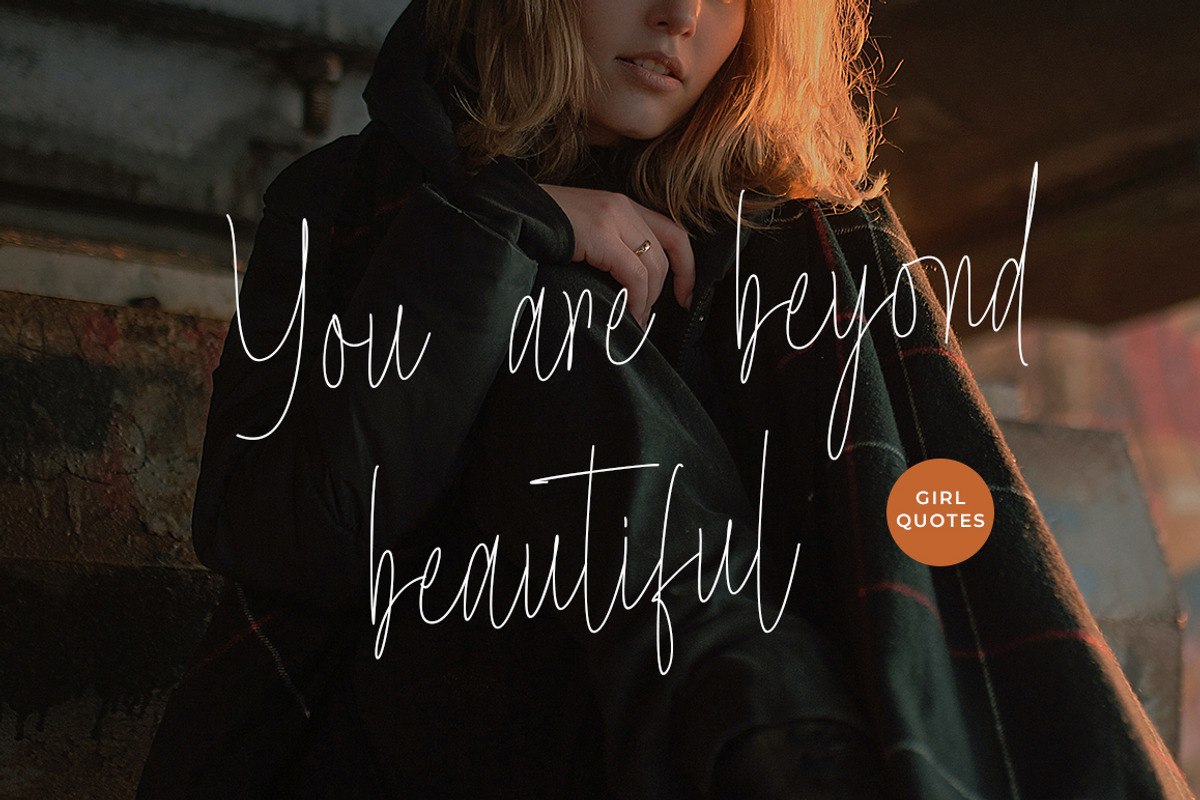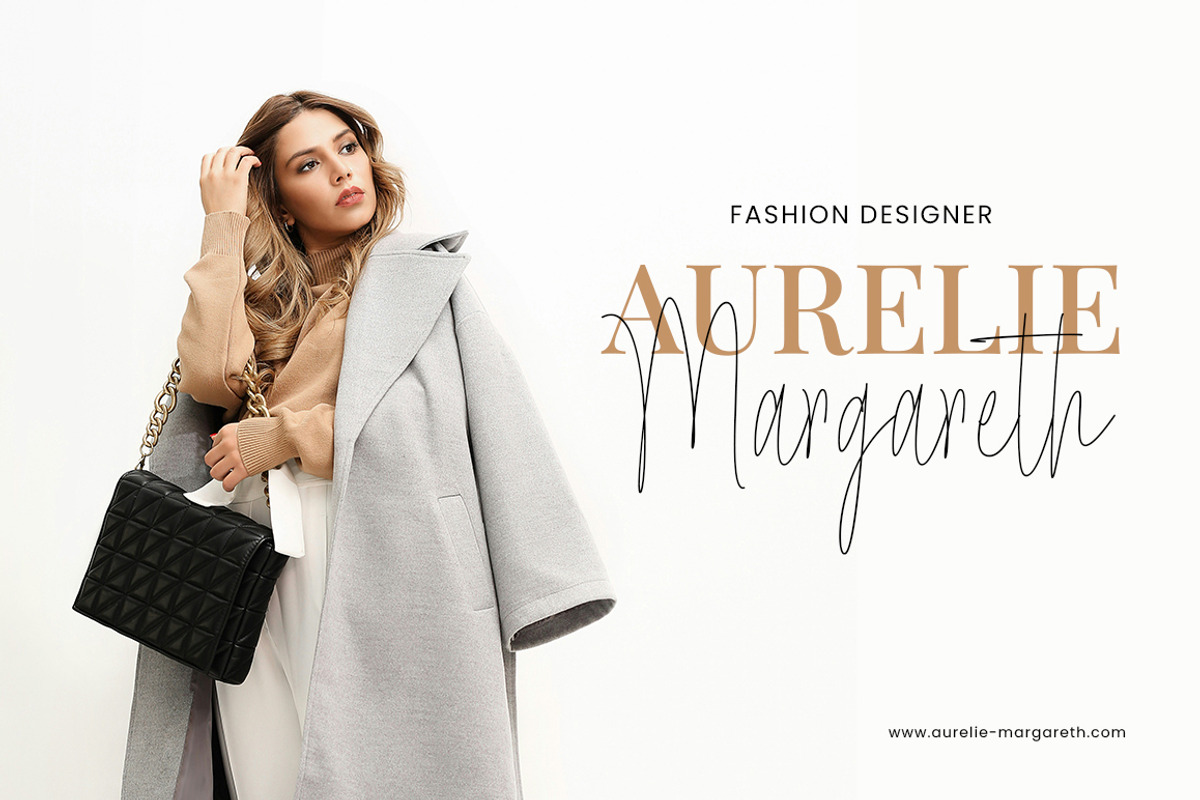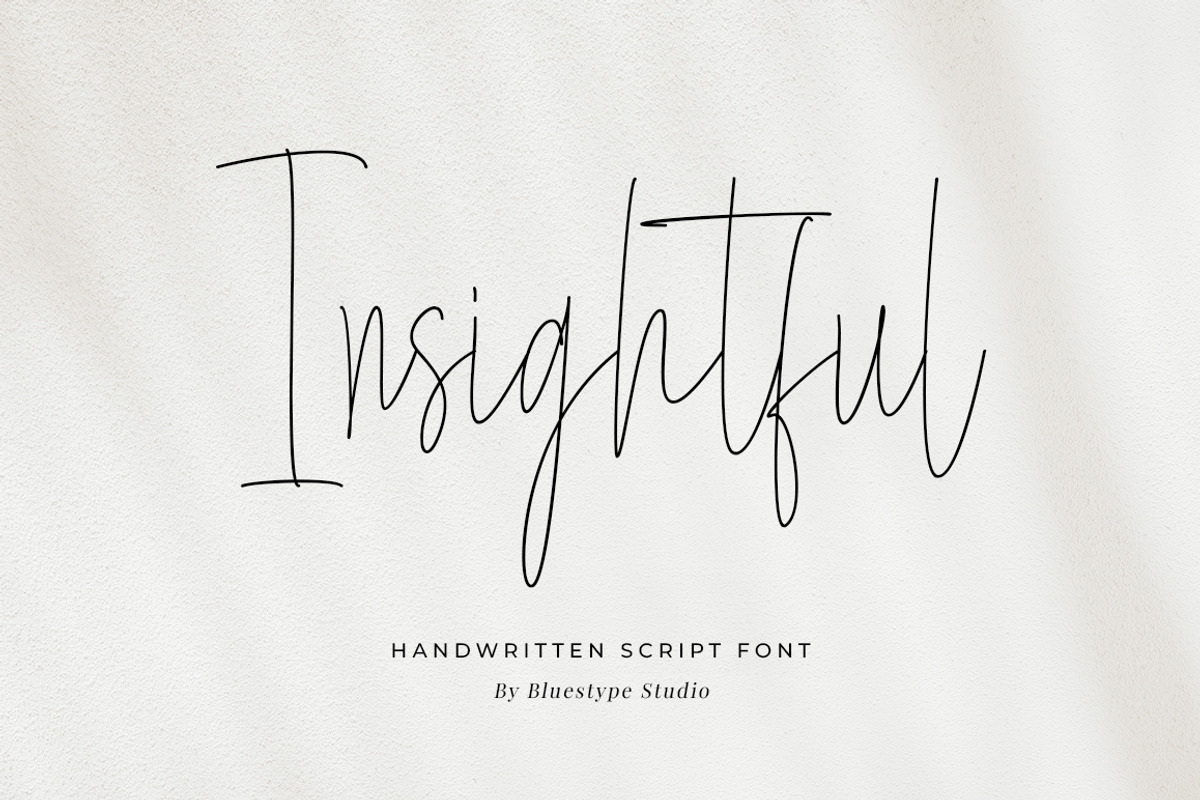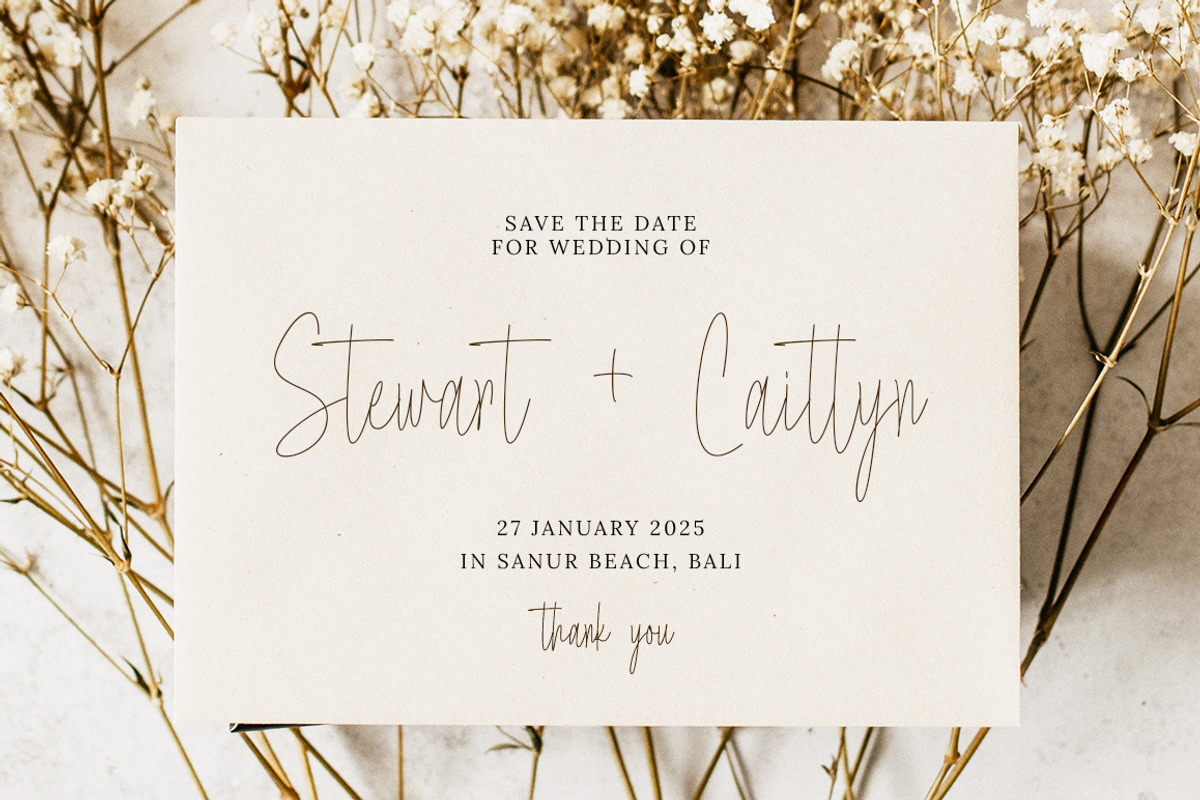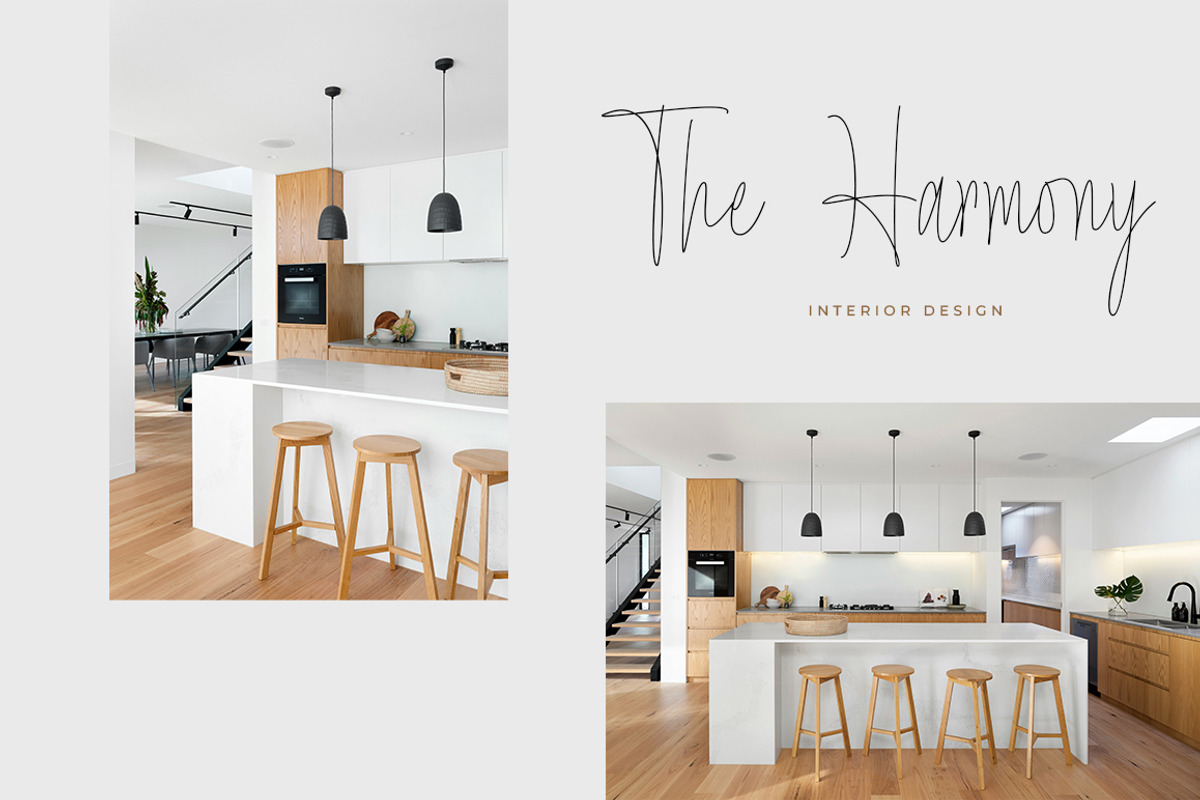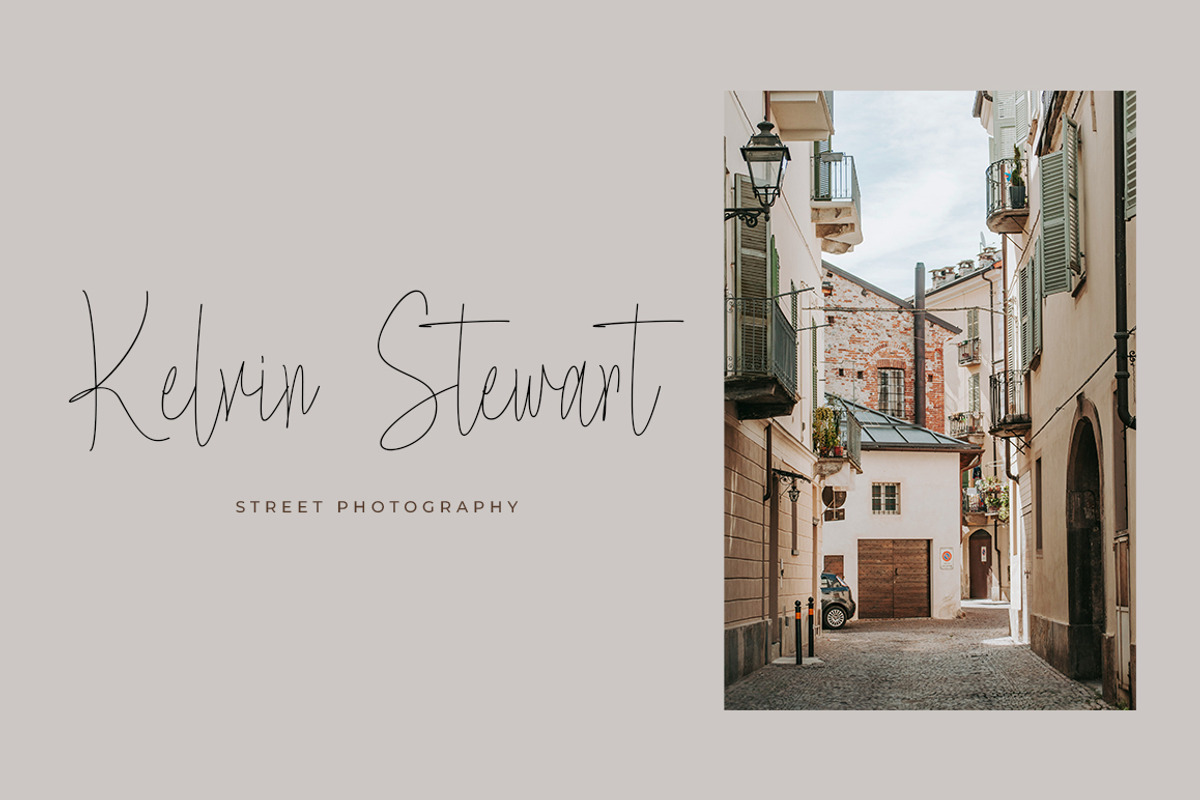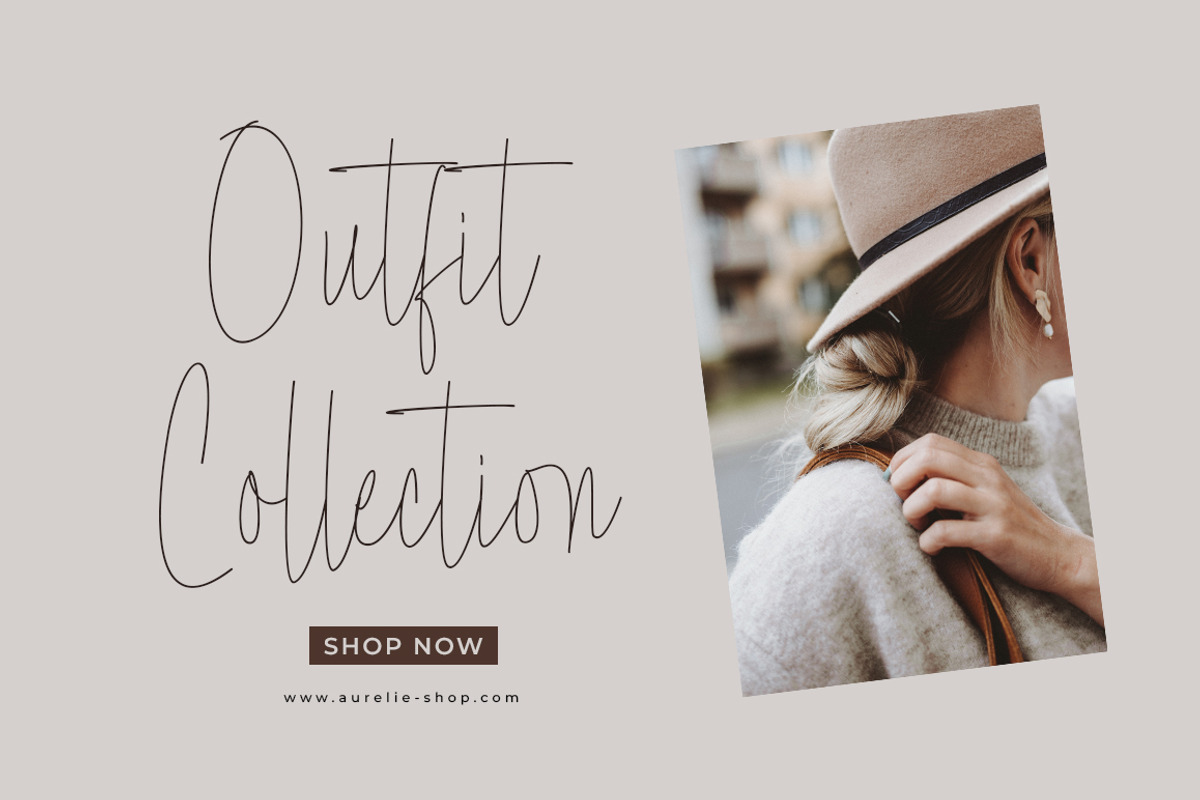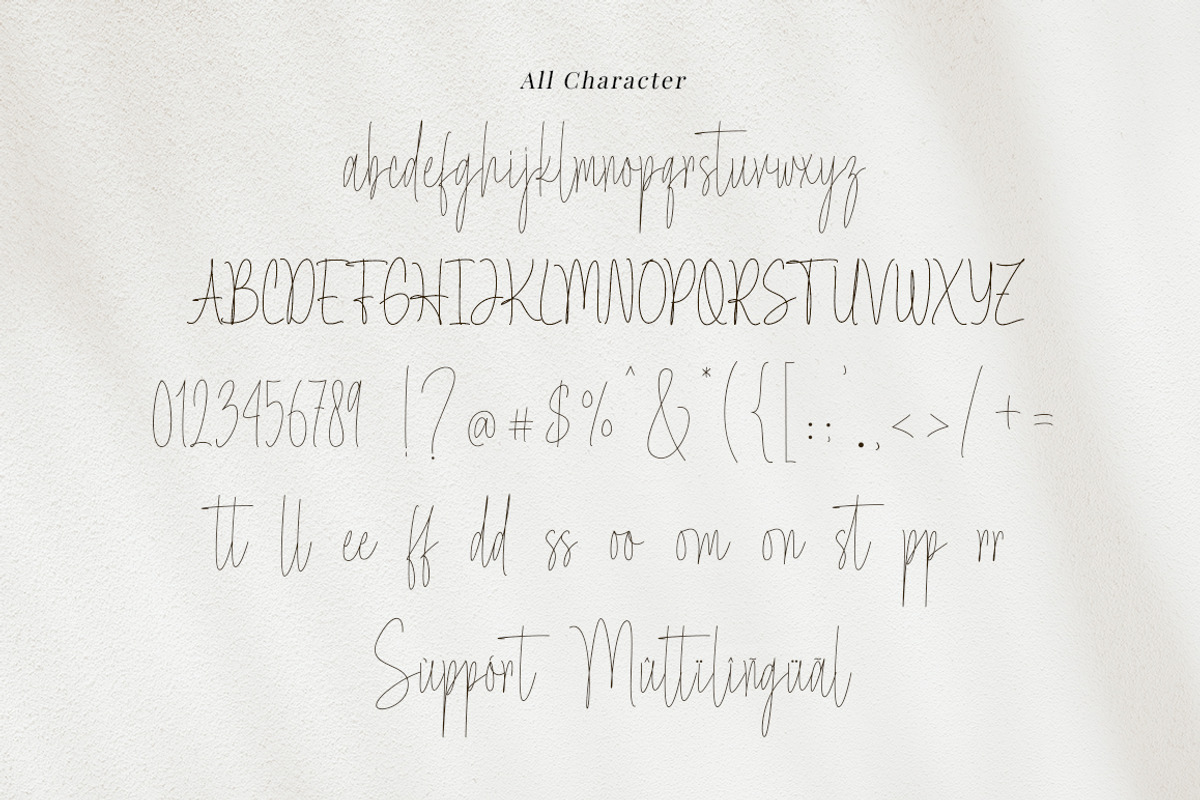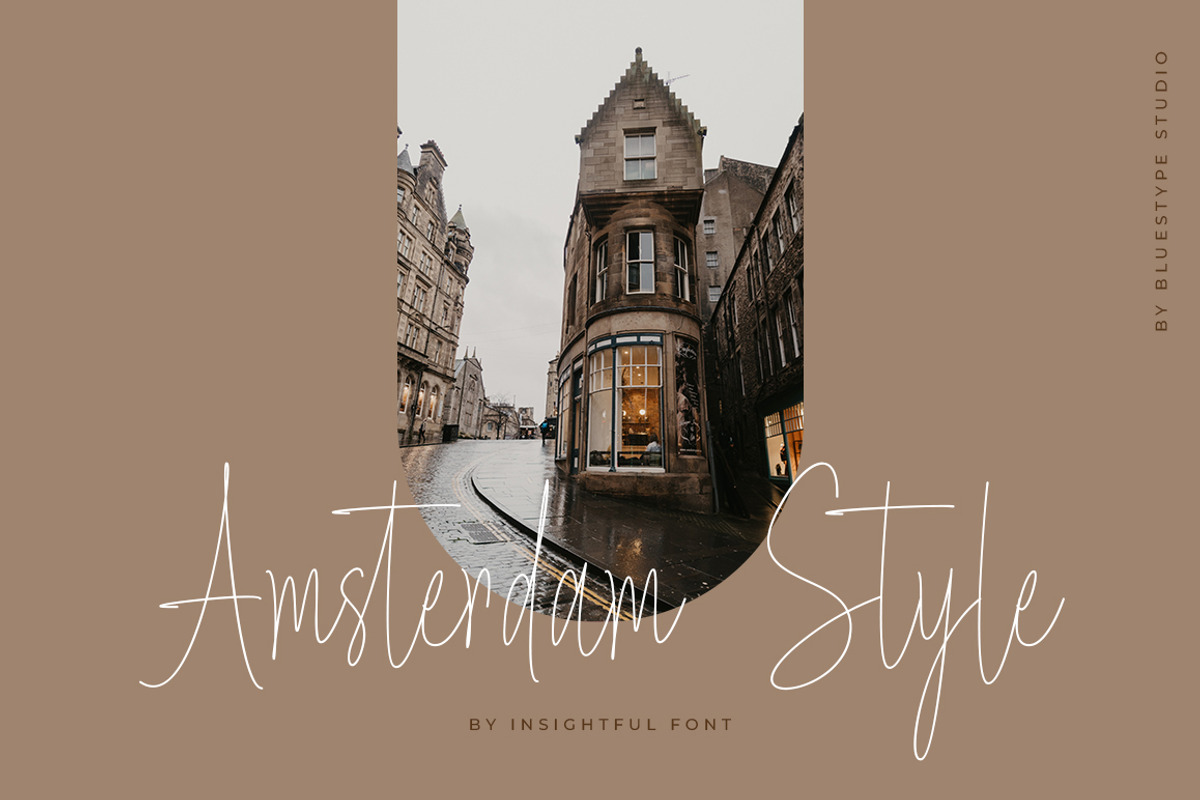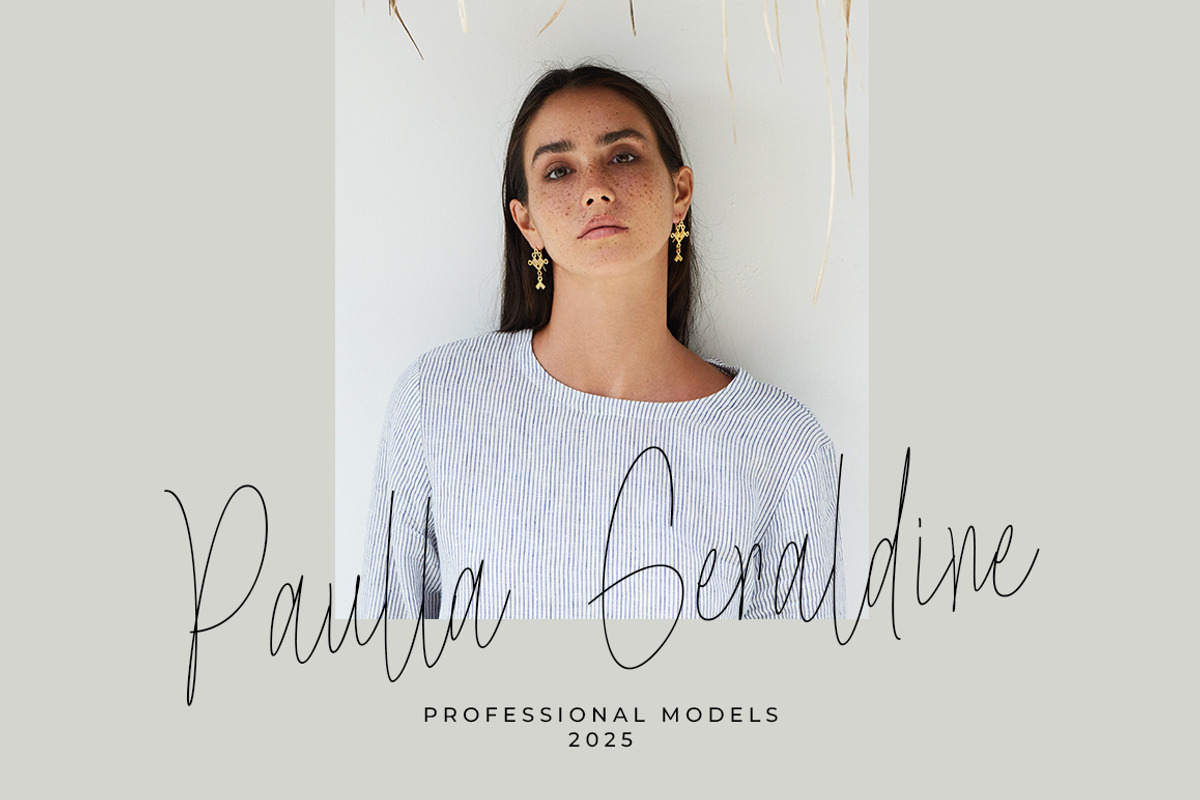
Insightful - Handwritten Script
"Insightful Font"
Embrace the organic beauty of handcrafted elegance with Insightful. Inspired by nature's effortless grace, this font captures the essence of natural handwriting. With its flowing strokes and authentic charm, Insightful adds a touch of warmth and sincerity to your designs. Perfect for conveying a sense of authenticity and connection, let Insightful illuminate your creative projects with its natural allure.